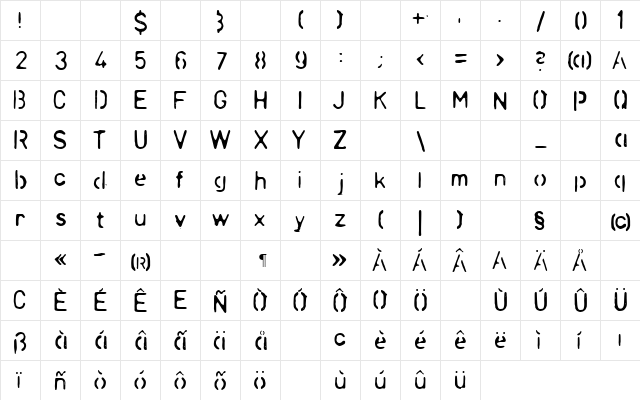
LLChina Regular
Design Context for LLChina Typeface
LLChina takes a measured approach to typography — its balanced proportions and neutral character make it a reliable workhorse for both digital and print work.
Pro Tip: Pair LLChina with a font of contrasting weight or personality to build a more expressive typographic hierarchy.